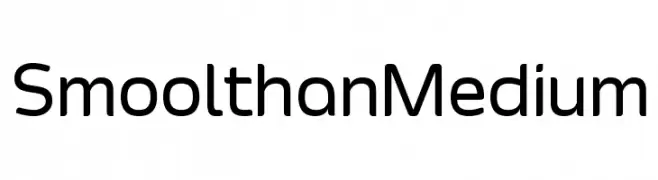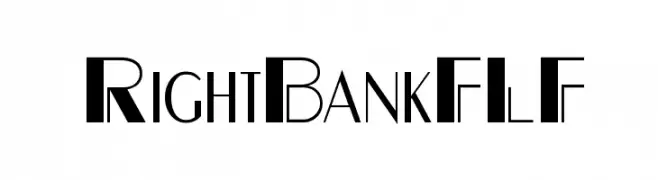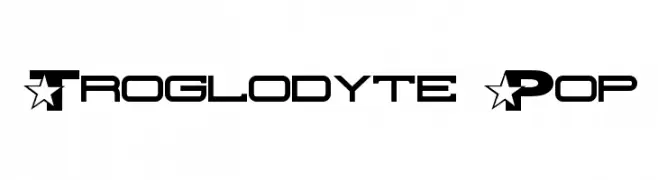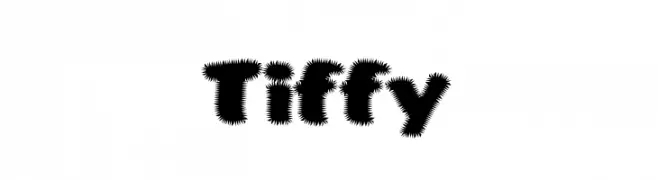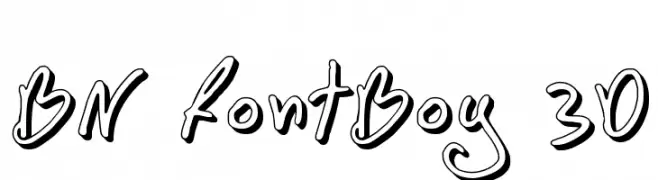
A bold, italic serif font with high contrast and elegant styling.
A modern sans-serif font with smooth curves and a balanced design.
A bold, jagged, hand-drawn font with an edgy and energetic style.
A bold, geometric font with a modern and professional style.
A bold, modern font with high contrast and geometric elements.
A bold, modern font with star motifs and geometric design.
A playful, 3D-effect font with a hand-drawn, whimsical style.